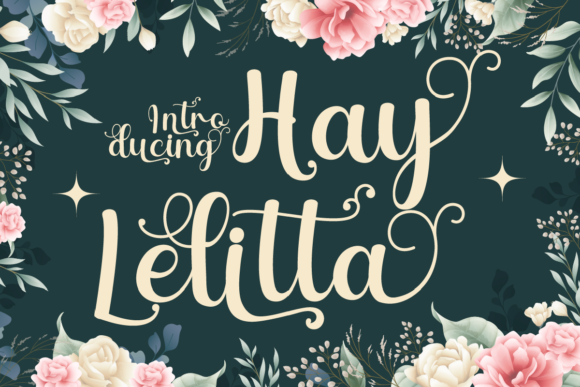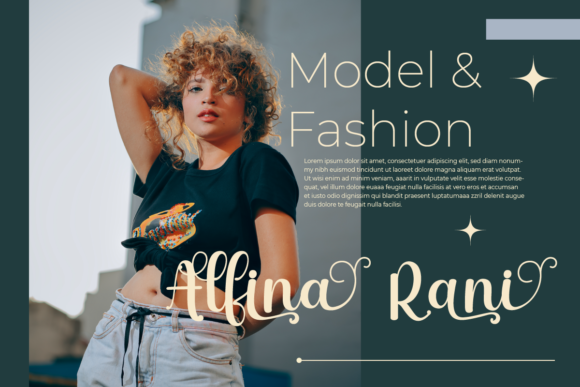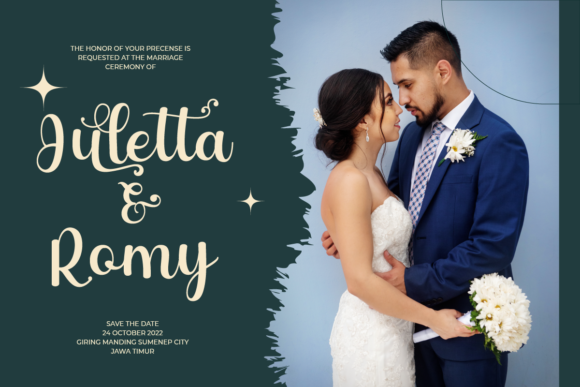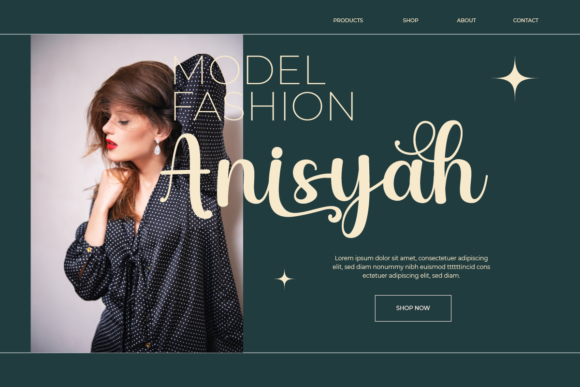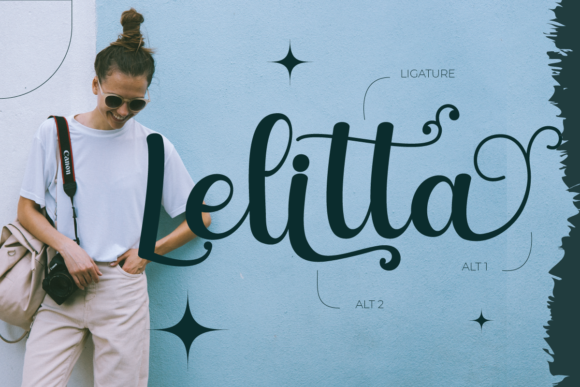
Hay Lelitta Font
About Hay Lelitta Font
Hay Lelitta is a beautiful handwritten font perfect for wall displays, wedding invitations, social media posts, logos, advertisements, product packaging, product designs, labels, photography, watermarks, invitations, stationery, and any project that requires a handwritten taste.